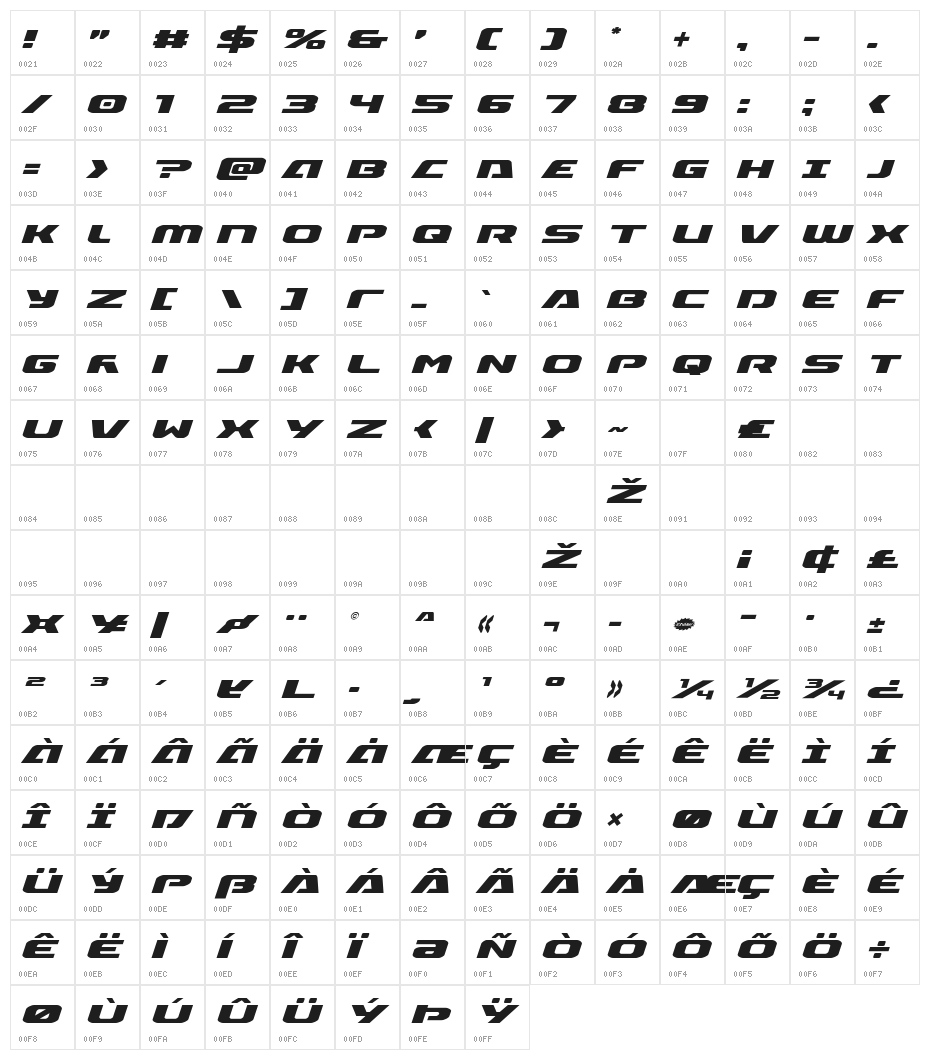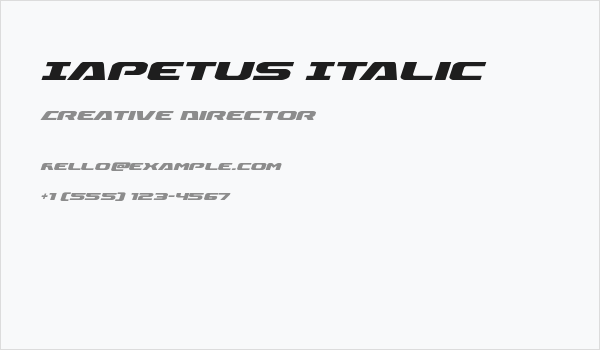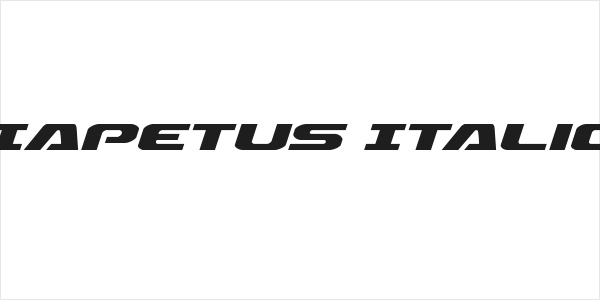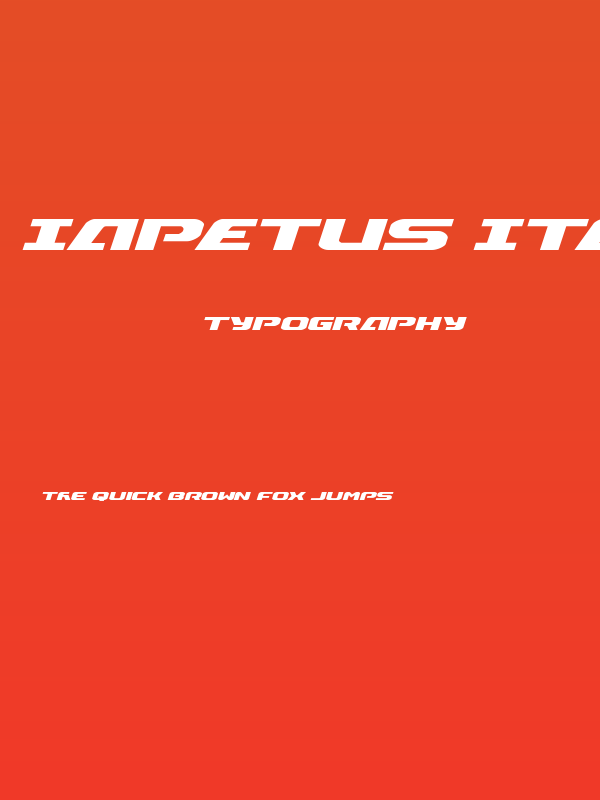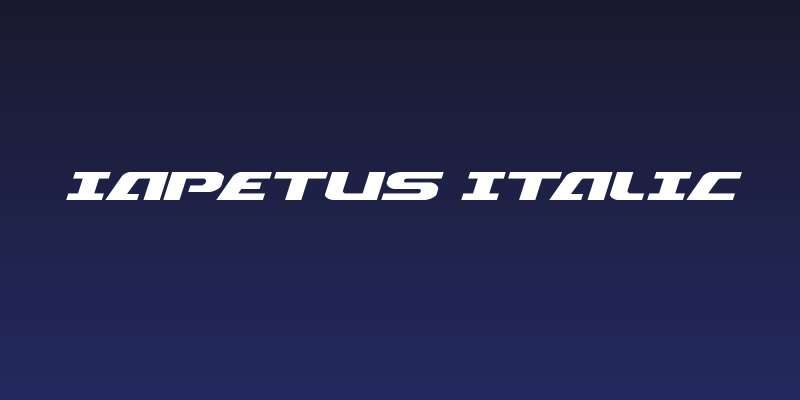
Iapetus Italic Font
Iapetus Italic Description
This font exhibits a bold and dynamic style with a futuristic and sporty aesthetic. The characters are italicized, giving a sense of motion and speed. The strokes are thick and consistent, with a slight slant that enhances its energetic appearance. The design features sharp angles and clean lines, making it highly legible while maintaining a distinctive look. The numbers and special characters follow the same bold and angular style, ensuring uniformity across all glyphs.
| Proposed Projects | Ideal for sports branding, automotive designs, video game titles, and dynamic advertising campaigns. |